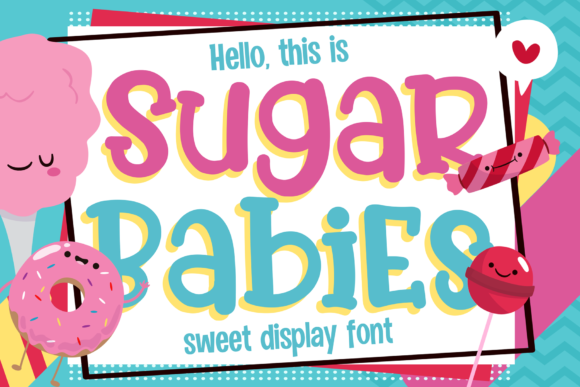
Introducing Sugar Babies Font, a delightful display font that's as sweet as its name! This playful typeface whisks you away into a world of childhood wonder. Imagine the joy it will bring to your next school project, birthday invitation, or heartwarming card.
Picture this: your little one's book adorned with Sugar Babies' charming letters, bringing their imagination to life with every page. It's like enchanting your design with a touch of magic, making it not just beautiful but unforgettable.
The perfect choice for capturing the innocence and exuberance of childhood. Create captivating stickers and packaging that will make kids' hearts flutter. Sugar Babies Font, where cuteness, fun, and color collide, leaving an indelible mark on your designs.